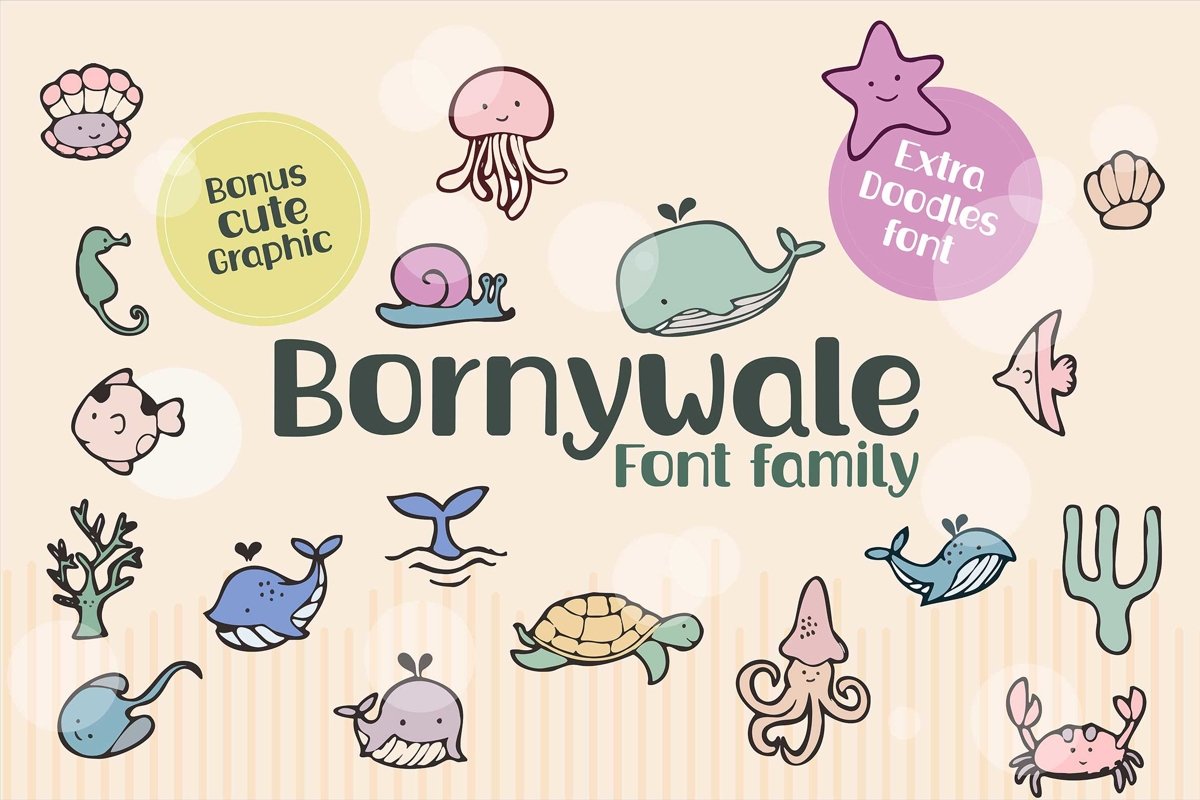
Bornywale font family
Bornywale font family is cute modern sans serif font from adevio studio,
this font can be used easily and simply because there are a lot of features in it to contain a complete set of letters lower and uppercase letters, assorted
punctuation, numbers, multilingual support, free bonus cute graphic animal sea and doodles font
This font is suitable for a variety of purposes, with a variety of features and alternative options, will greatly help beautify your product or work